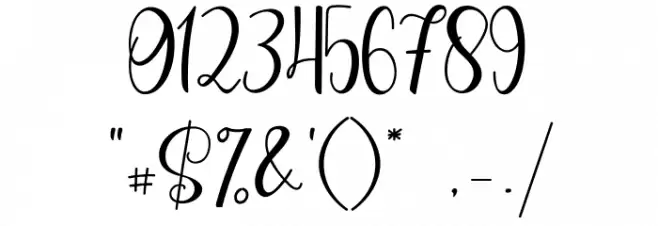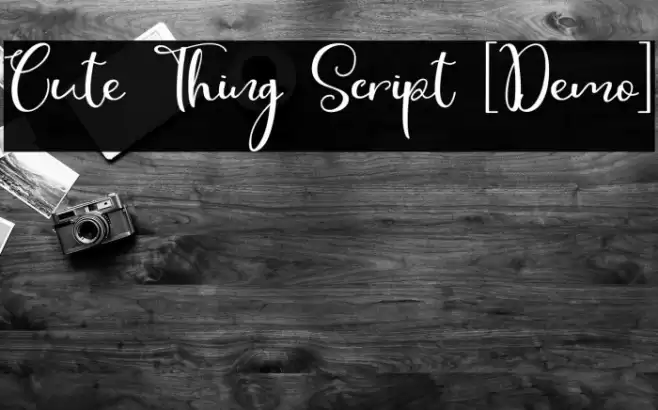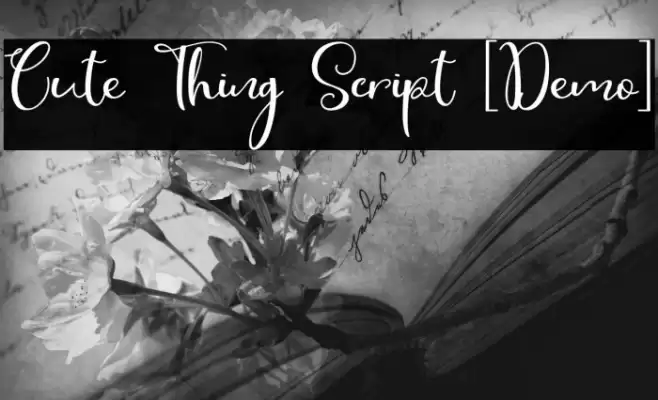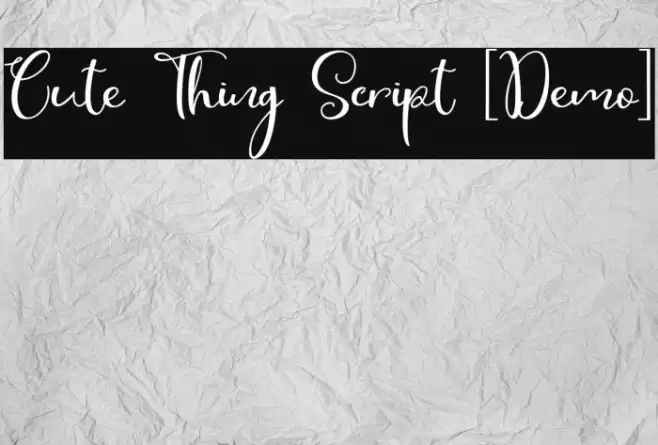
Cute Thing Script [Demo] Font
Cute Thing Script [Demo] Description
This font exudes a playful and whimsical charm, characterized by its flowing, cursive script style. The letters are elegantly connected, with a smooth, handwritten appearance that adds a personal touch. The uppercase letters feature intricate loops and swirls, while the lowercase letters maintain a consistent flow, enhancing readability. The numerals and special characters are crafted with the same attention to detail, ensuring a cohesive look across all elements. This font's unique style makes it ideal for projects that require a touch of elegance and creativity.
A playful, cursive script font with elegant loops and swirls from Uncategorized fonts.
- Proposed Projects: Ideal for wedding invitations, greeting cards, branding, and creative projects that require a personal touch.
- Use Case: Headlines, Logos, Invitations